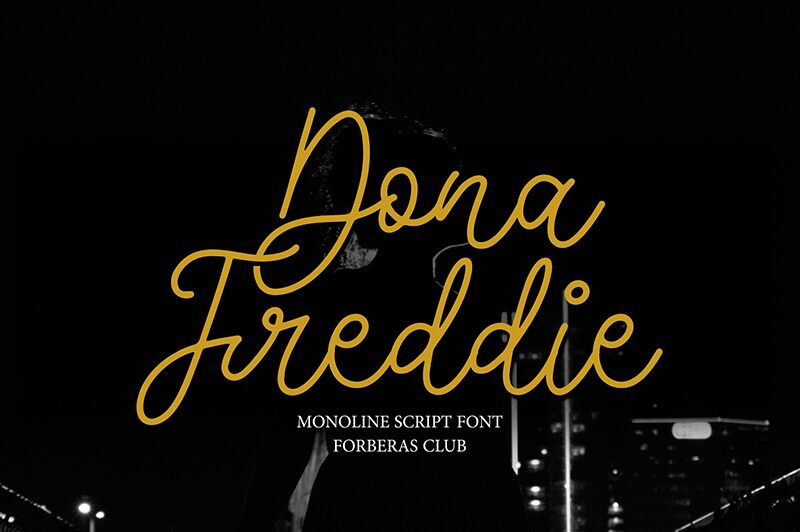
Introducing Dona Freddie - a light and handwritten script font designed by Forberas Club. Perfect for adding a personal touch to your projects, Dona Freddie is ideal for creating memorable logos, stationery, invitations, social media posts and more.